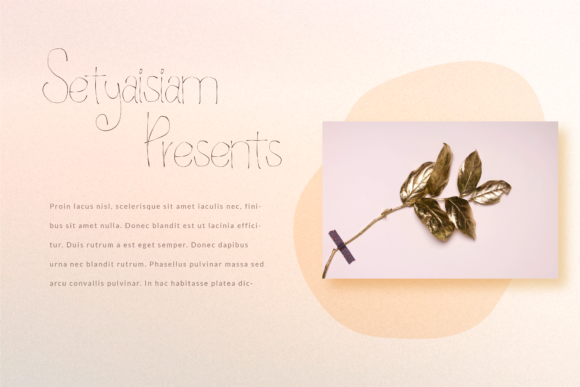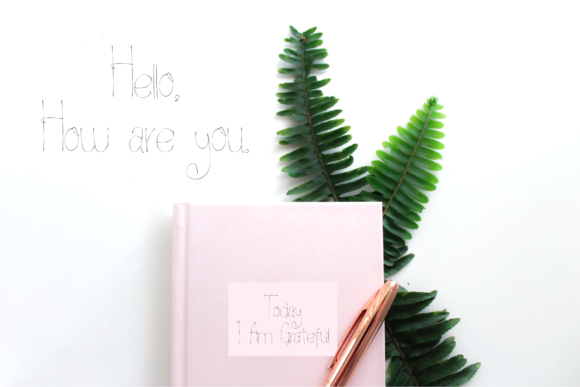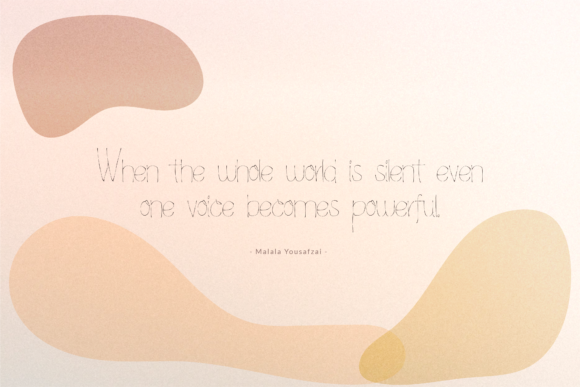
Introduction to Briyties Font
Briyties is a sweet and delicate brushed handwritten font.
Its authentic look and feel will add a personal and realistic feel to your designs .
Why Choose Briyties Font?